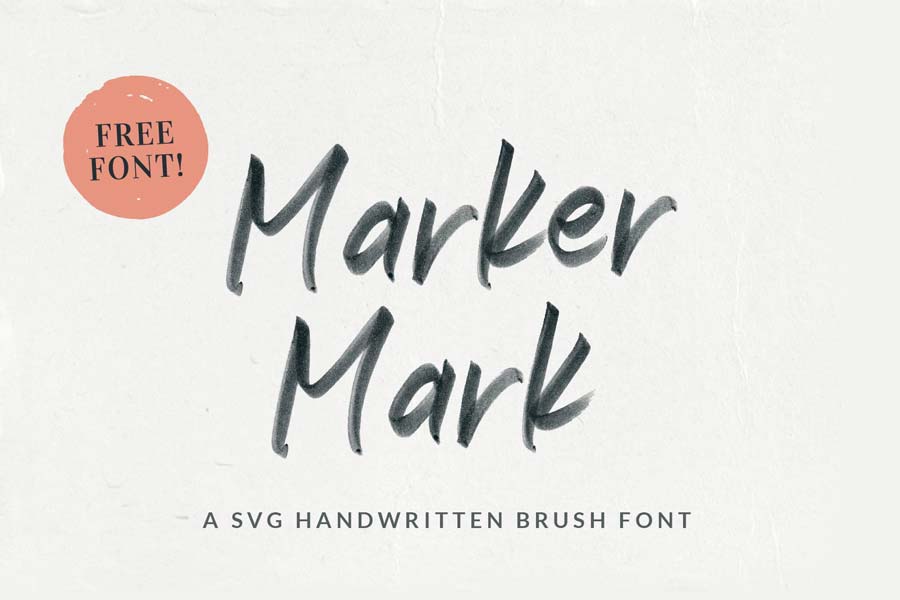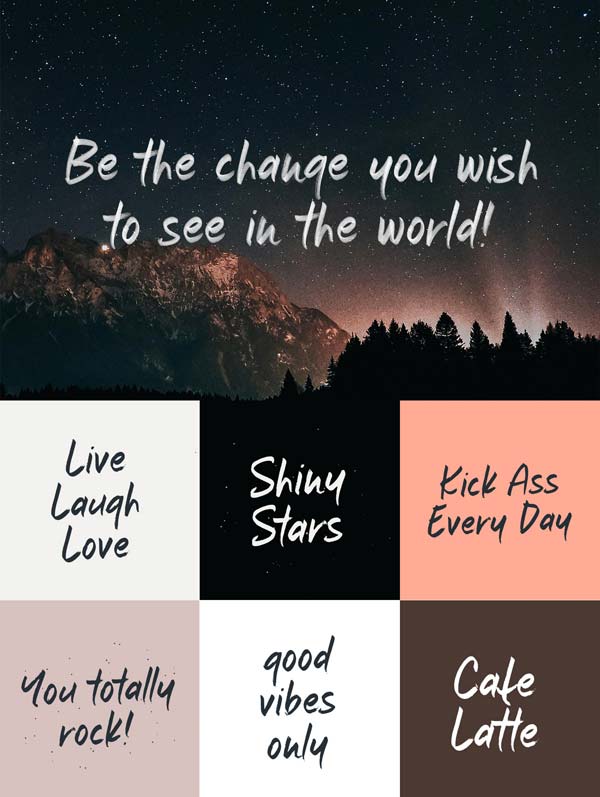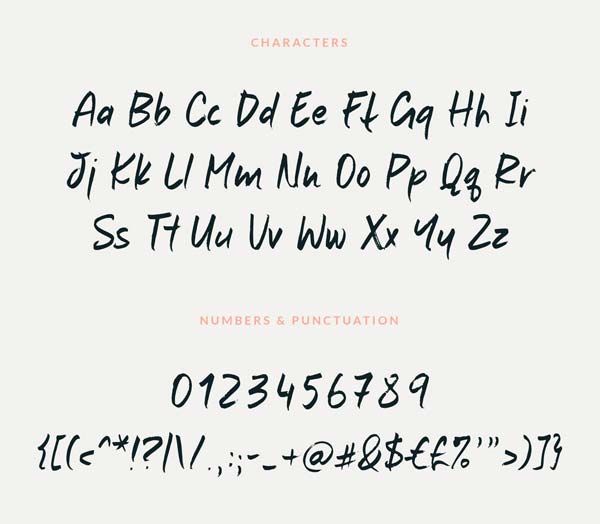
Marker Mark is a free SVG handwriting font that was written by using marker pen. The font was written on a paper, then transferred to digital format with a scanner.
The font retained the natural texture of a marker pen, and it’s a great font choice for works that you wish to bring out the personal touch side of things. Plus it’s highly readable and perfect for label, posters, cards designs. You can download and use this font for both personal and commercial projects.
- Designer: Vlad Cristea
- Category: Handwriting